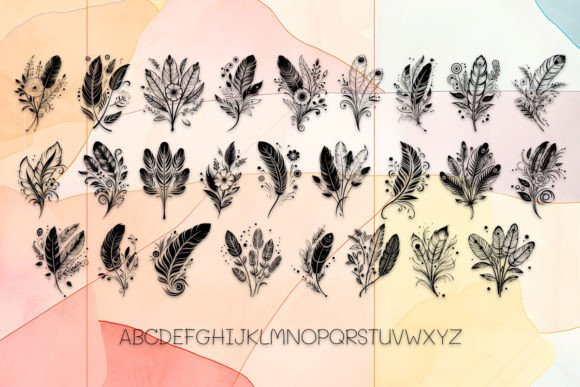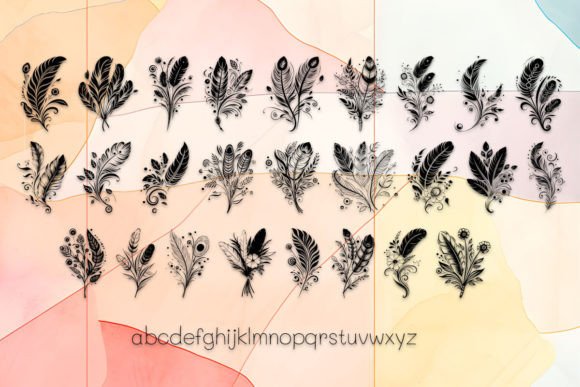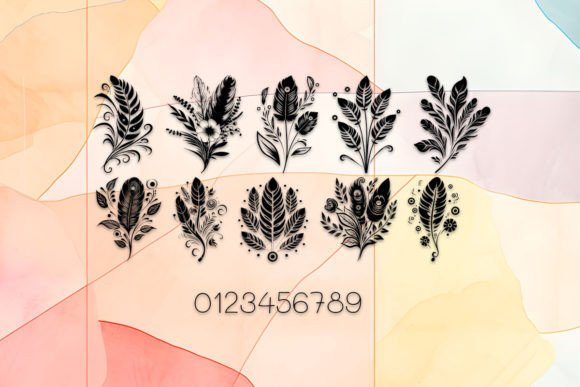
Beautiful Feather Combination Font: Elevate Your Designs with Elegance
Indulge in the elegance of our exquisite feather-inspired dingbats fonts, a captivating combination of grace and creativity. Our Beautiful Feather Combination Font is designed to add a touch of sophistication to your designs, whether you’re working on invitations, branding, or digital creations.
About the Font
Our feather-themed dingbats font is a comprehensive set of typographic elements, featuring 26 striking uppercase letters, 26 lowercase letters, and a complete set of numbers 0-9. This extensive range of characters allows you to experiment with various design combinations, ensuring that your projects stand out with a unique and captivating aesthetic.
The Beauty of Feathers in Typography
Feathers have long been a symbol of elegance, freedom, and creativity. By incorporating feather-inspired elements into our dingbats font, we’ve created a typographic experience that is both visually stunning and emotionally evocative. Each character in our Beautiful Feather Combination Font is meticulously crafted to capture the delicate allure of feathers, adding a touch of whimsy and sophistication to your designs.
Whether you’re a professional designer or a crafty DIY enthusiast, our Beautiful Feather Combination Font is the perfect addition to your creative toolkit. Use it to:
- Create stunning invitations for weddings, baby showers, or other special occasions
- Develop a cohesive brand identity with a unique and memorable visual style
- Elevate your digital creations, such as social media graphics, blog posts, or email newsletters
- Add a touch of elegance to your craft projects, like scrapbooking, card making, or mixed media art
Key Features of the Font
Our Beautiful Feather Combination Font is designed to be versatile and user-friendly. Here are some key features that make it an excellent choice for your design projects:
- Comprehensive character set: 26 uppercase letters, 26 lowercase letters, and numbers 0-9
Our Beautiful Feather Combination Font is a timeless and elegant addition to any design project. With its comprehensive character set, high-resolution images, and user-friendly design, it’s the perfect choice for designers and crafters looking to add a touch of sophistication and whimsy to their work. So why wait? Let your creativity take flight with our exquisite feather-inspired dingbats font.